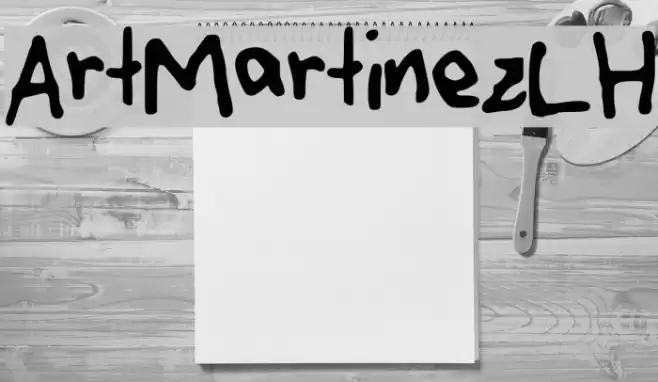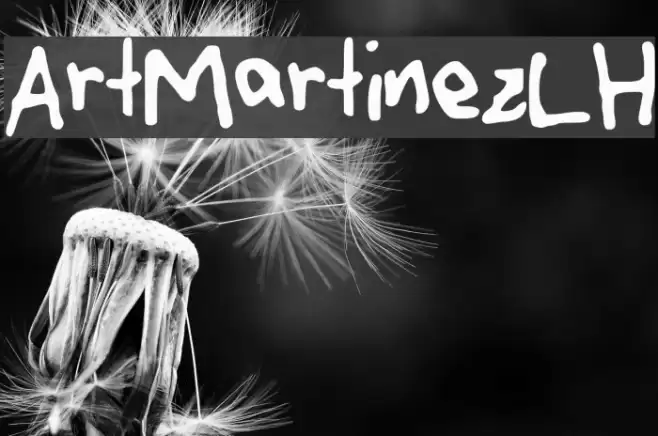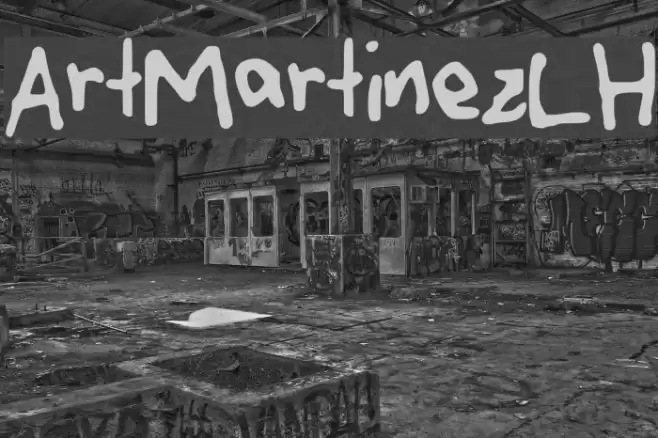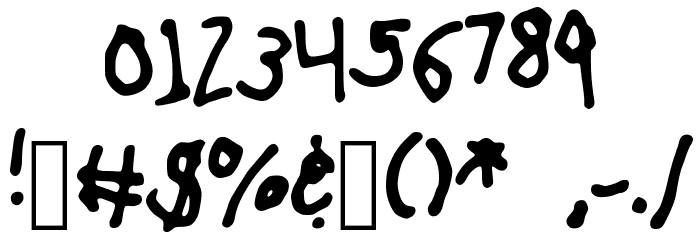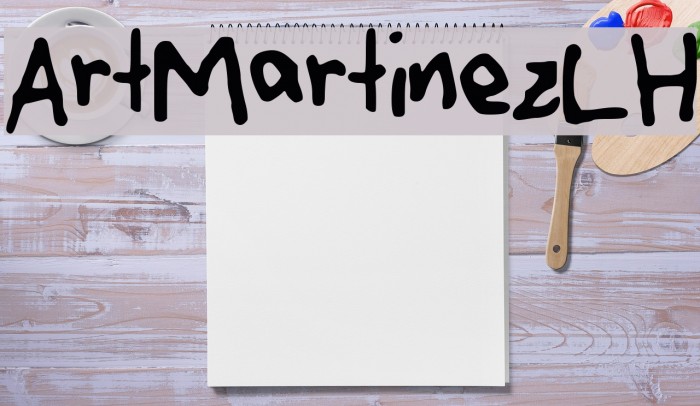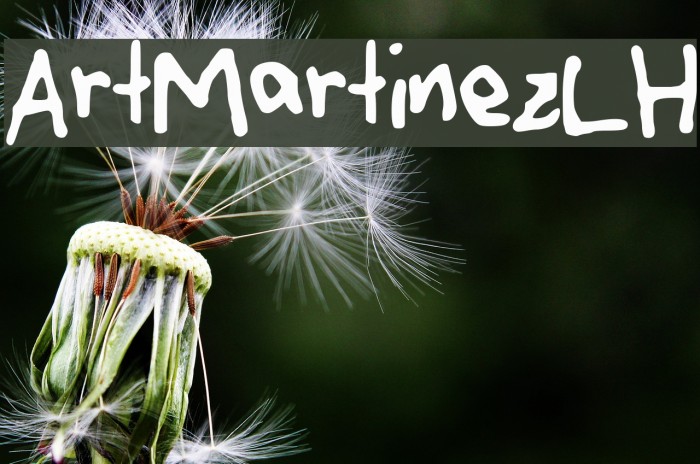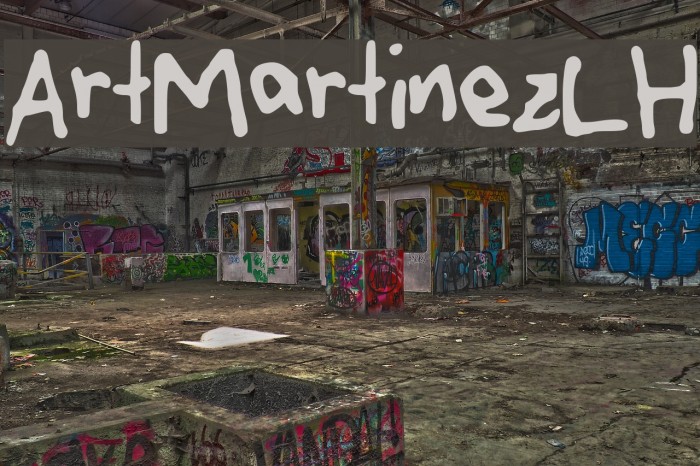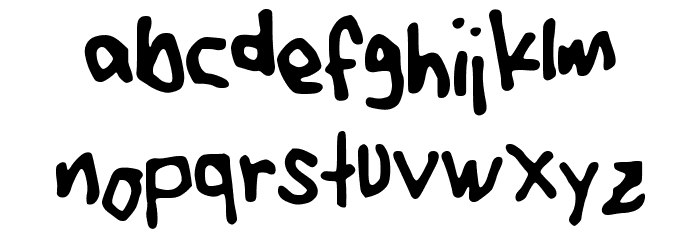
Art_Martinez_LH Font
Art_Martinez_LH Description
This font features a playful and informal handwritten style, characterized by its irregular and slightly whimsical letterforms. The strokes are uneven, giving it a casual and approachable feel. Each character appears to have been drawn with a marker or brush, adding to its organic and spontaneous appearance. The uppercase and lowercase letters maintain a consistent style, with rounded edges and varying stroke widths. Numbers and special characters are included, matching the overall playful aesthetic. This font is suitable for projects that require a personal touch or a creative flair.
A playful, handwritten font with irregular, marker-like strokes from Handwritten fonts.
- Proposed Projects: Ideal for children's books, greeting cards, personal blogs, and creative branding.
- Overall Style: Casual
- Use Case: Headlines, Informal text, Creative projects